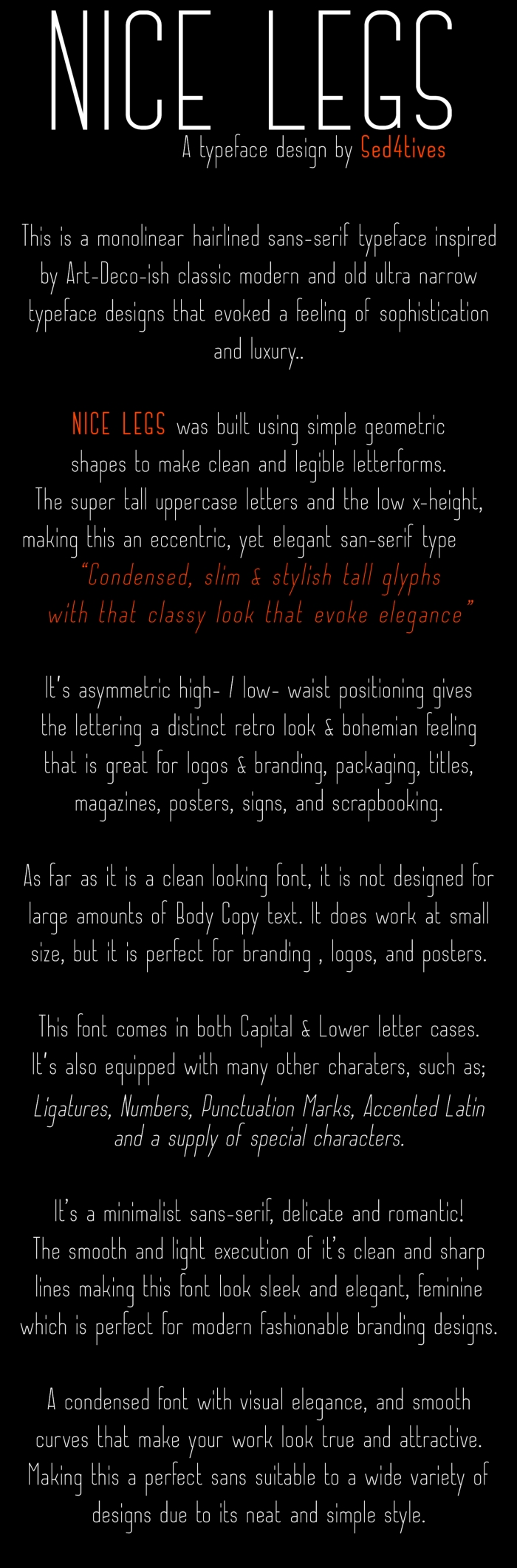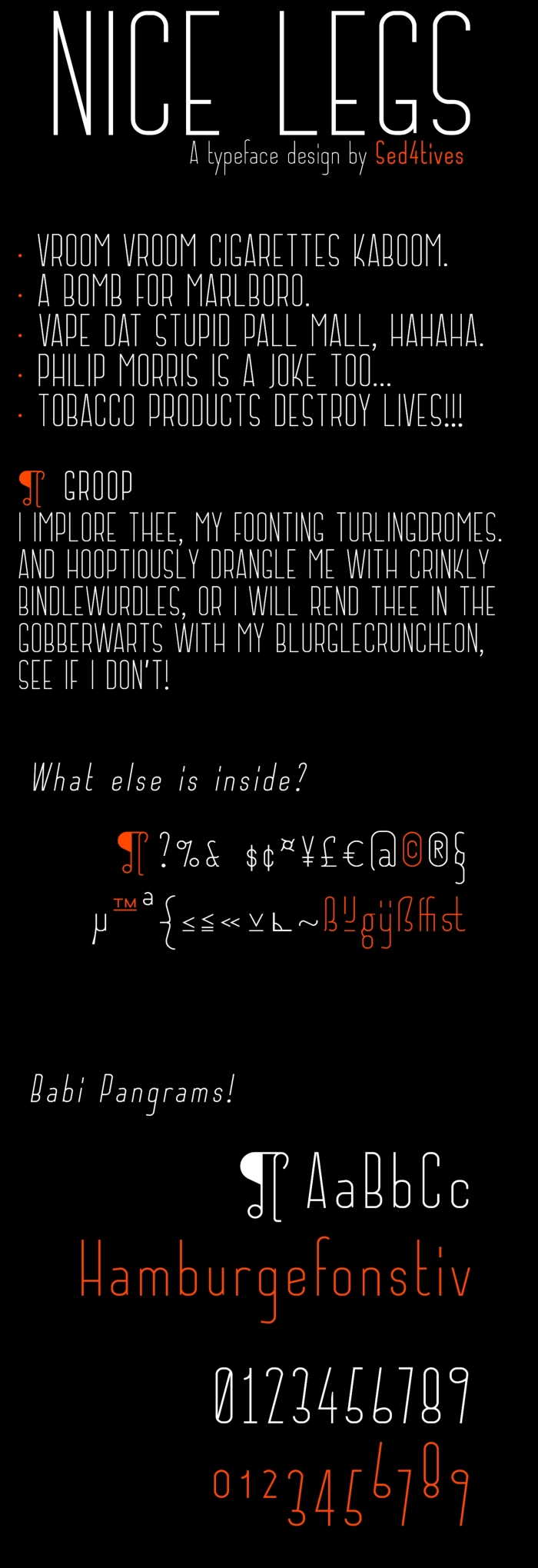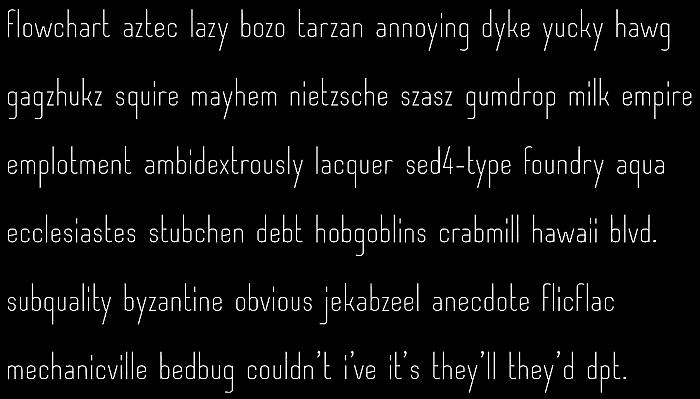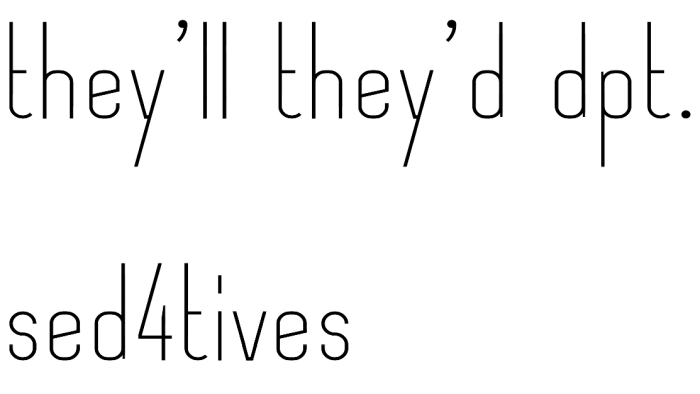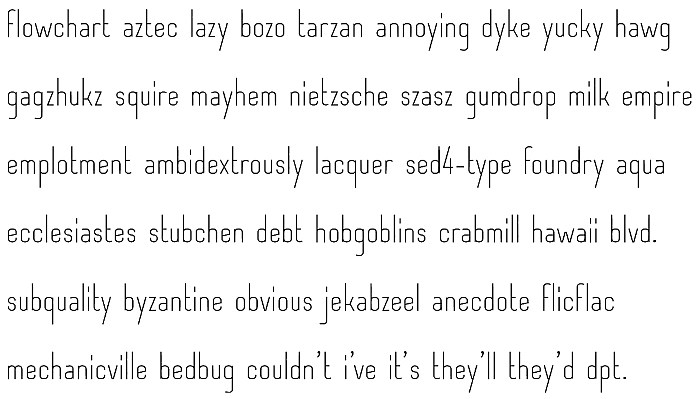
• STF_NICE LEGS — Condensed modernist sans
This is a monolinear hairlined sans-serif typeface inspired by Art-Deco-ish classic modern and old ultra narrow typeface designs that evoked a feeling of sophistication and luxury..
A condensed slim & elegant style that has this classy look. The tall upper-case evokes elegance and it's asymmertical high- / low- waist distribution.
NICE LEGS was built using simple geometric shapes to make clean and legible letterforms. The super tall uppercase letters and the low x-height,
making this an eccentric, yet elegant san-serif type
— “Condensed, slim & stylish tall glyphs with that classy look that evoke elegance”.
It's asymmetric high- / low- waist positioning gives the lettering a distinct retro look & bohemian feeling that is great for logos & branding, packaging, titles, magazines, posters, signs, and scrapbooking.
As far as it is a clean looking font, it is not designed for large amounts of Body Copy text. It does work at small size, but it is perfect for branding , logos, and posters.
This font comes in both Capital & Lower letter cases. It's also equipped with many other charaters, such as; Ligatures, Numbers, Punctuation Marks, Accented Latin and a supply of special characters
It’s a minimalist sans-serif, delicate and romantic! The smooth and light execution of it’s clean and sharp lines making this font look sleek and elegant, feminine which is perfect for modern fashionable branding designs.
A condensed font with visual elegance, and smooth curves that make your work look true and attractive. Making this a perfect sans suitable to a wide variety of designs due to its neat and simple style.
PS: I'm still working on kerning the font...
I've been doing some kerning on this font ― pretty amazing how crisp the FontStruct preview is rendering.
These 3 new images are basically just simple Print Screen's taken in the FontStruct-editor.